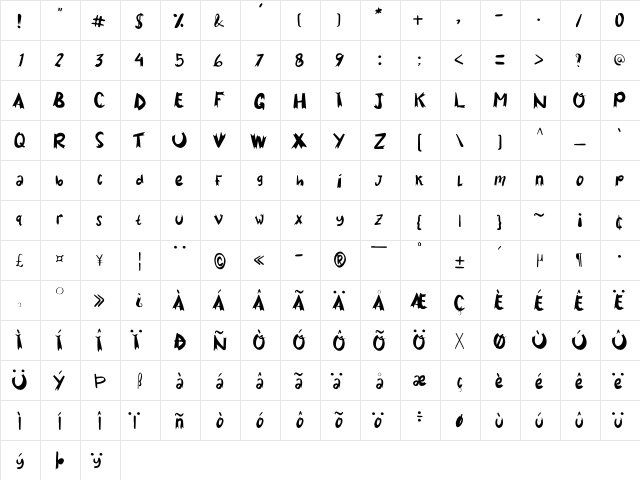
Lost Kingdom Regular
| Designer | Fajar Wicaksono |
Design Context for Lost Kingdom Typeface
Lost Kingdom is a composed and adaptable typeface that performs quietly and consistently across a wide range of design contexts.